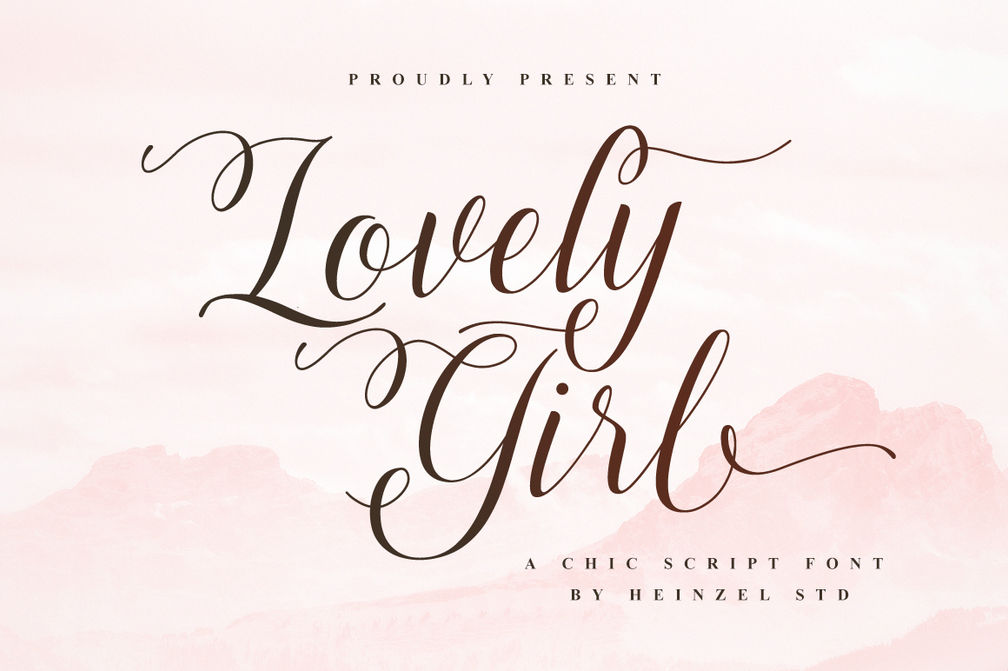
Lovely Girl Script Font
Lovely Girl – Elegant Script Font with Swashes, Alternates & Ligatures
Lovely Girl is a beautifully crafted script font designed to bring elegance and charm to your creative projects. With its flowing strokes, graceful swashes, versatile alternates, and smooth ligatures, this font offers endless design possibilities. Whether you’re working on wedding invitations, feminine branding, fashion logos, social media posts, or product packaging, Lovely Girl adds a touch of sophistication and romance to every design.
This modern calligraphy-inspired typeface is easy to use and highly versatile, making it a must-have for designers who want to create stunning typography with a chic, timeless feel.
Perfect For:
Wedding invitations & stationery
Logo & branding design
Quotes & greeting cards
Fashion & beauty projects
Social media graphics & blog headers